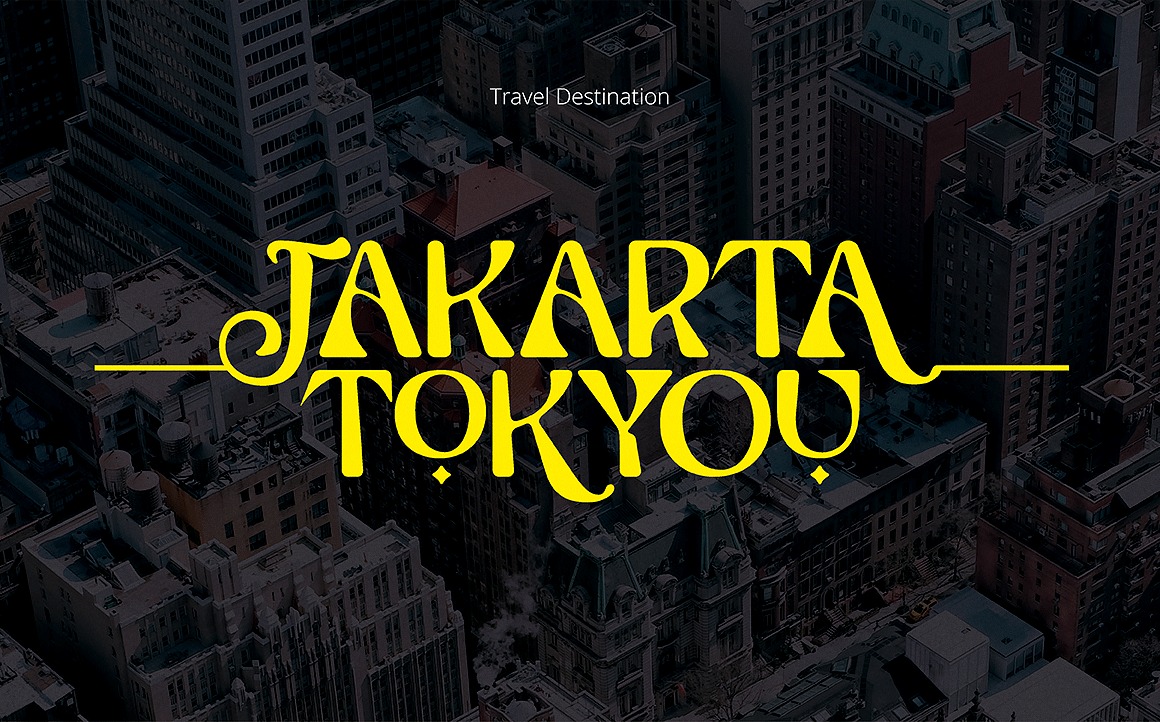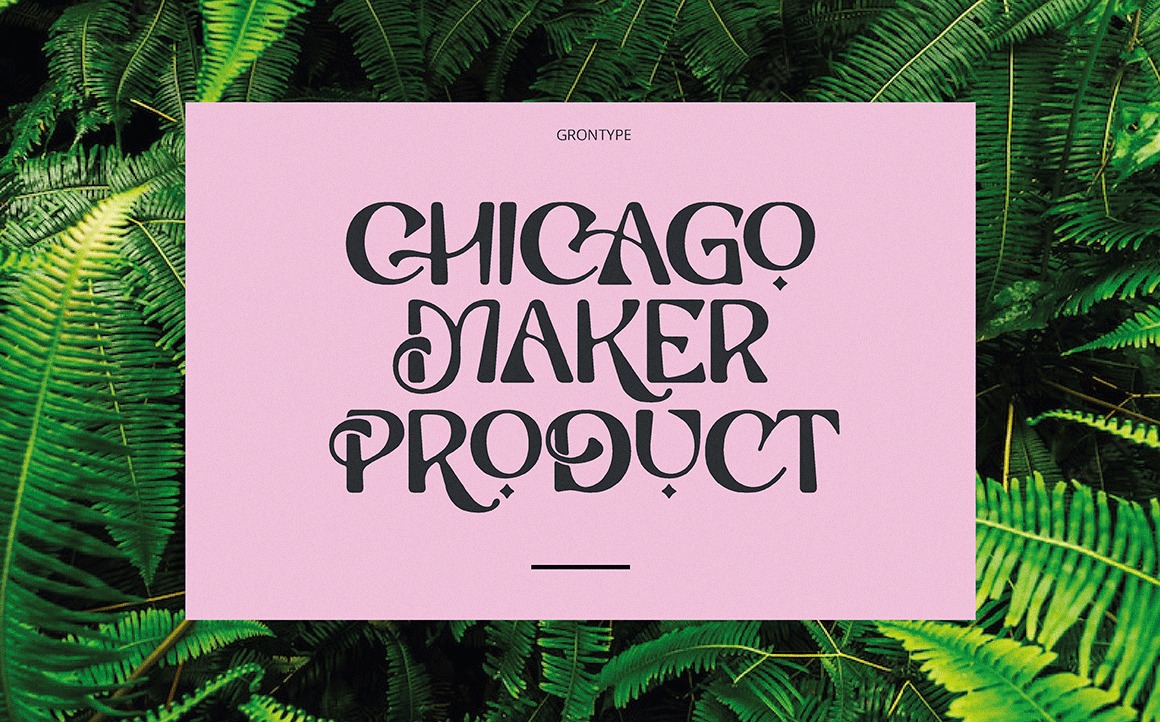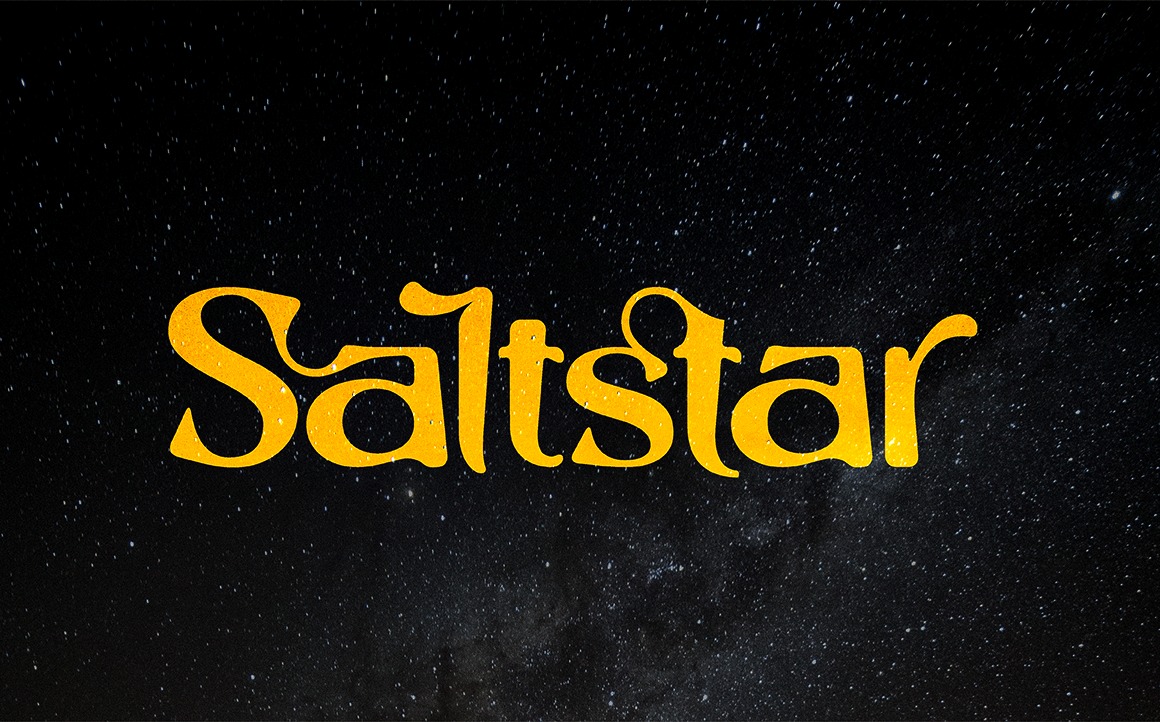
Saltstar Font
Saltstar Serif Font
It’s a genuine vintage serif typeface loaded with alternates and ligatures. The font is rounded point and unique shapes. It come with extra ligatures and alternative. This font is specially created for your branding need such as invitational card, flyer font, magazine heading layout and any other project.